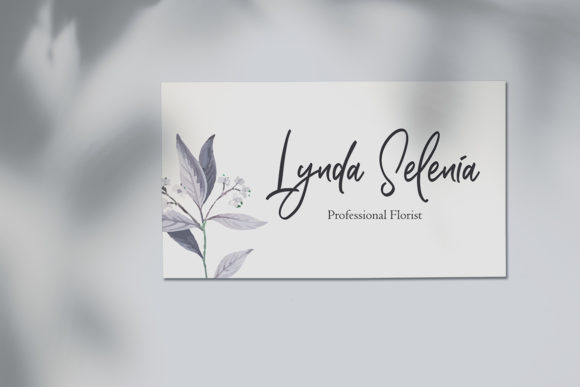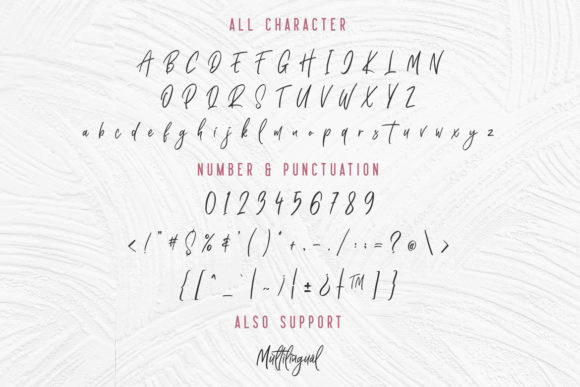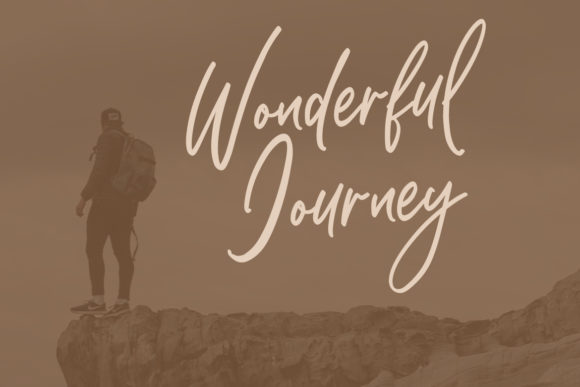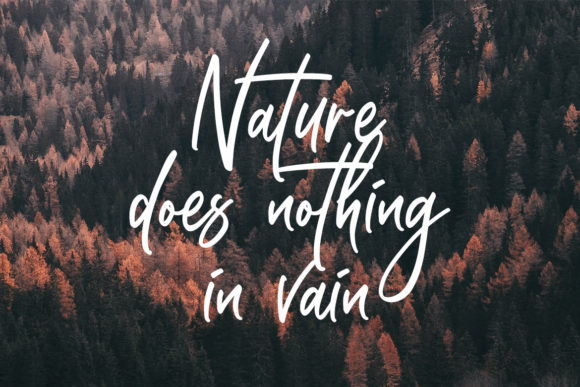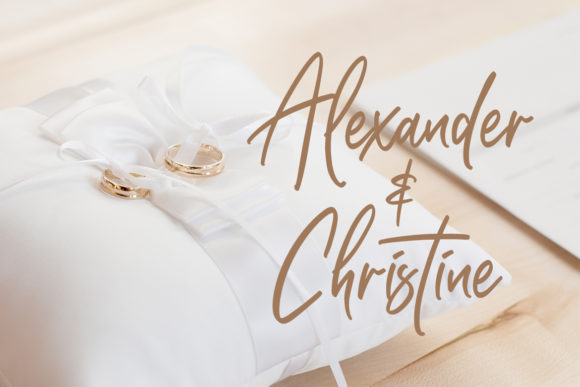
Stinkley Font
About Stinkley Font
Stinkley is a beautiful, romantic handwritten font, perfect for any design project that you wish to create. Stinkley is incredibly versatile, carefully handcrafted to become a true favorite. Use it to lift your projects to the highest level!